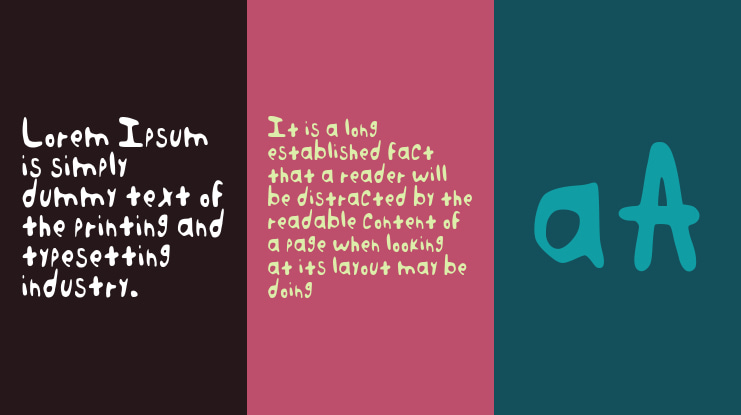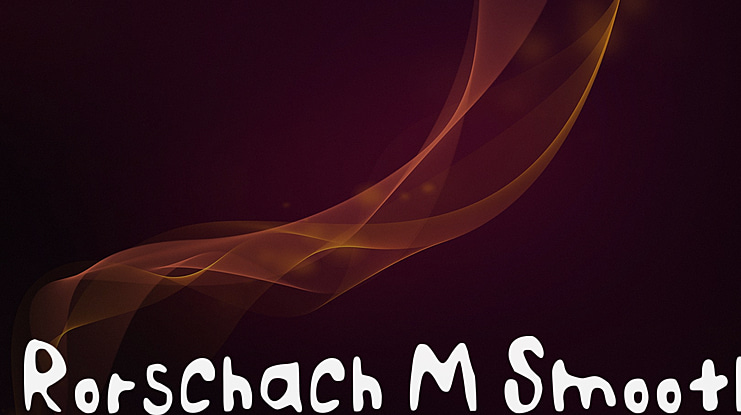
Rorschach M Smooth Font
I had a pen break on me, ink just went everywhere. With my now broken pen, I blew the rest of the ink onto a piece of paper, and drew new letters, using the end bit of the pen. The result was something I never expected